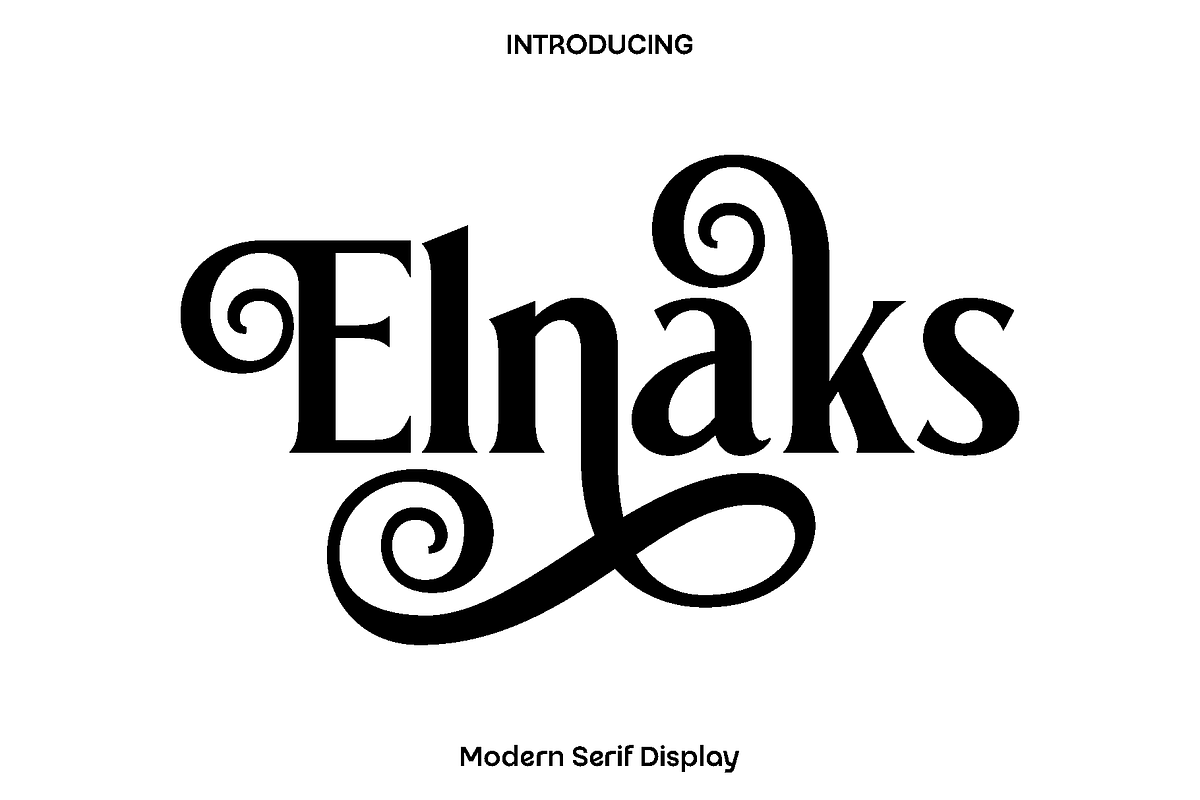
Elnaks Modern Serif Display
Elnaks is a serif display font created to express timeless beauty with a soft, feminine, and elegant character. Inspired by classic typography and refined fashion aesthetics, Elnaks blends graceful curves with stylish details that bring warmth and charm to every word. Its beautifully crafted alternate characters add a decorative touch, allowing your designs to feel more personal, artistic, and exclusive.
This font shines in projects that celebrate elegance and emotion. Elnaks is perfect for logos and branding, wedding invitations, stationery, product packaging, labels, photography watermarks, social media visuals, advertisements, and special event designs. Whether used for romantic themes or premium creative concepts, Elnaks delivers a sophisticated presence that feels both classic and modern.
Elnaks feels graceful, charming, and confident. It helps designers create visuals that leave a memorable impression while maintaining clarity and style. From delicate headlines to expressive quotes, this font adapts beautifully across print and digital media, making it a valuable addition to any creative toolkit.
Elnaks Elegant Serif Display Font Features:
• Classic and feminine serif display characters
• Beautiful alternate stylist for creative typography
• Unique punctuation, numbers, and symbols
• Uppercase and lowercase
• OpenType features
• Multilingual support for a wide range of languages